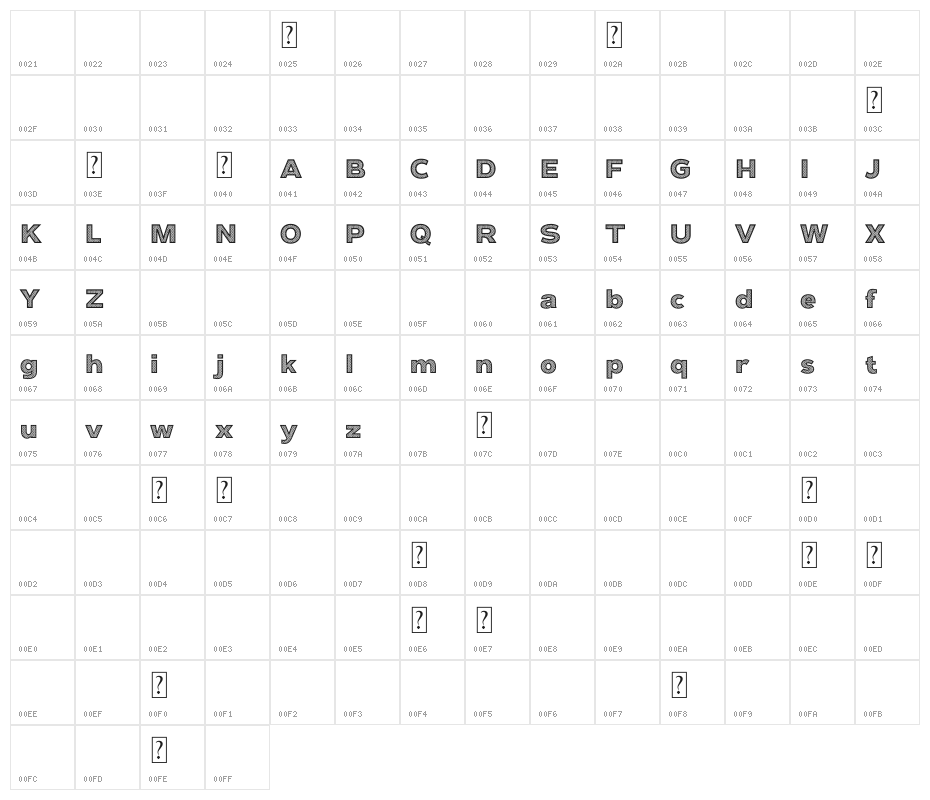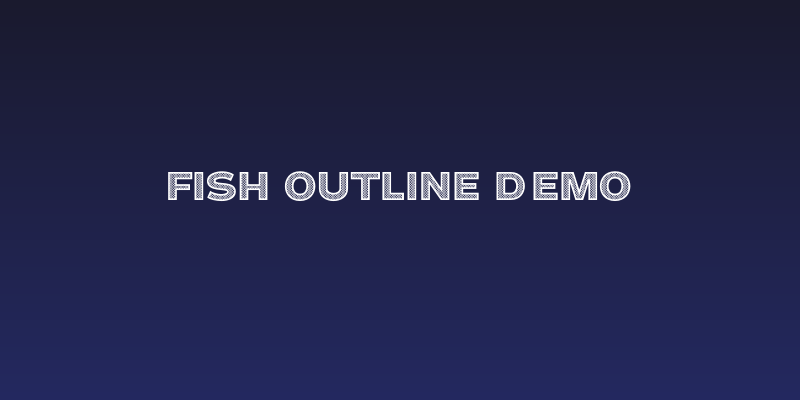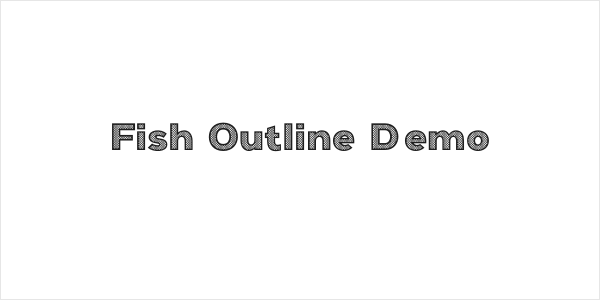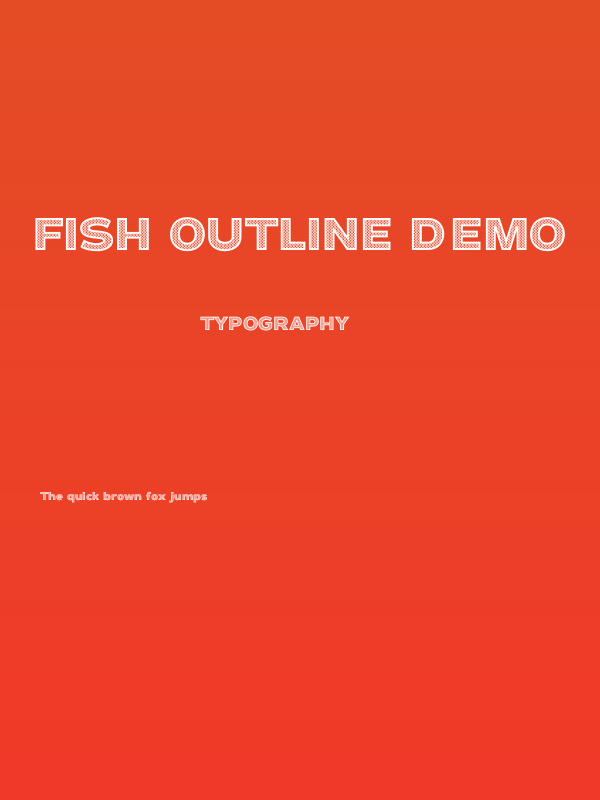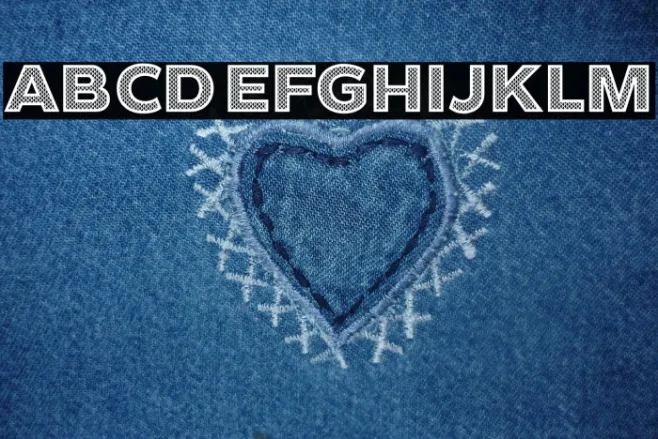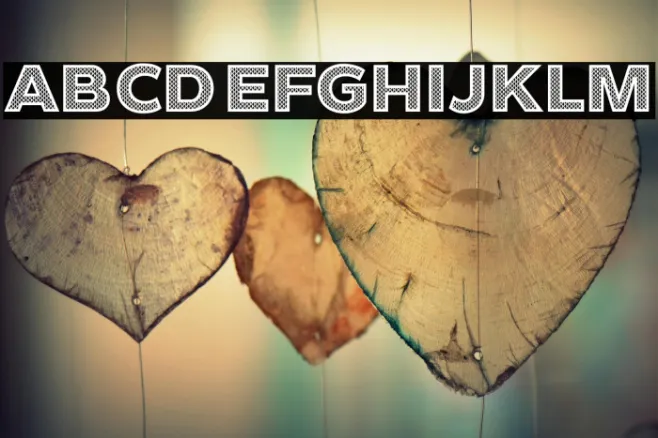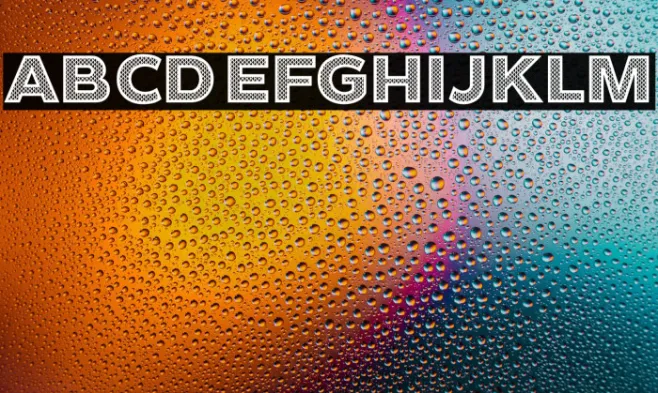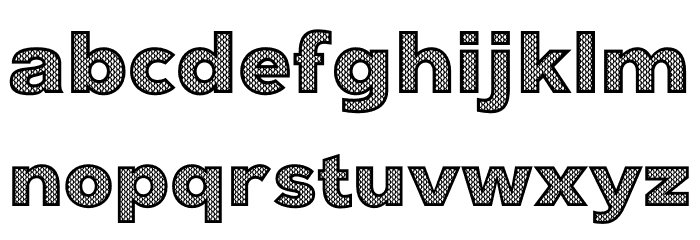
Fish Outline Demo Font
Fish Outline Demo Description
This font features a bold, decorative style with a unique fish-scale pattern filling each character. The uppercase and lowercase letters maintain a consistent outline, creating a visually striking appearance. The design is playful yet structured, making it suitable for creative projects that require a distinctive look. The font includes a full set of uppercase and lowercase letters, numbers, and a selection of special characters. The pattern within the letters adds texture and depth, enhancing its decorative appeal.